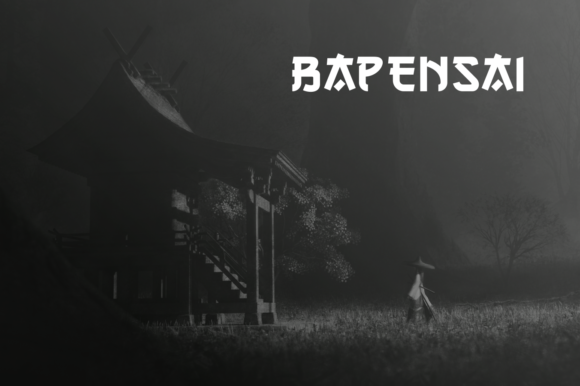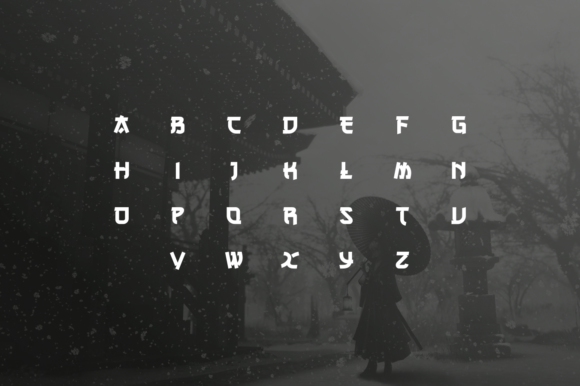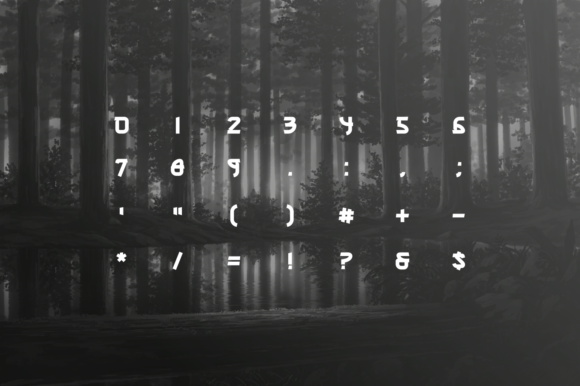
Jarene Font – Free Download
Introduction to Jarene Font
Jarene is a cool display font inspired by Japanese kanji fonts, with a modern English style.
The dynamic shape between straight and curved lines makes it look more professional, reminiscent of a ninja .